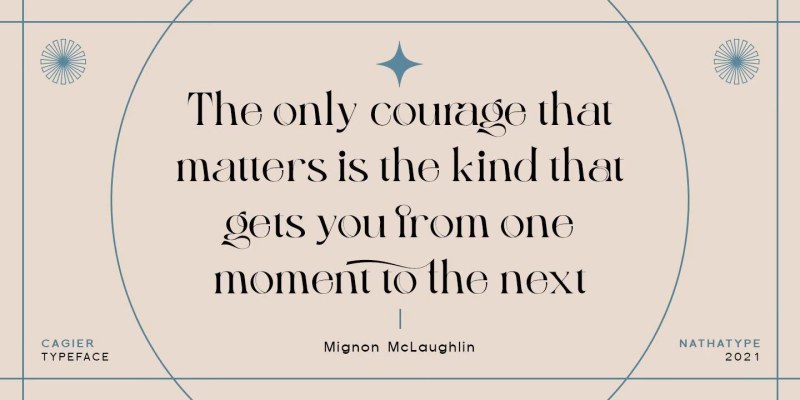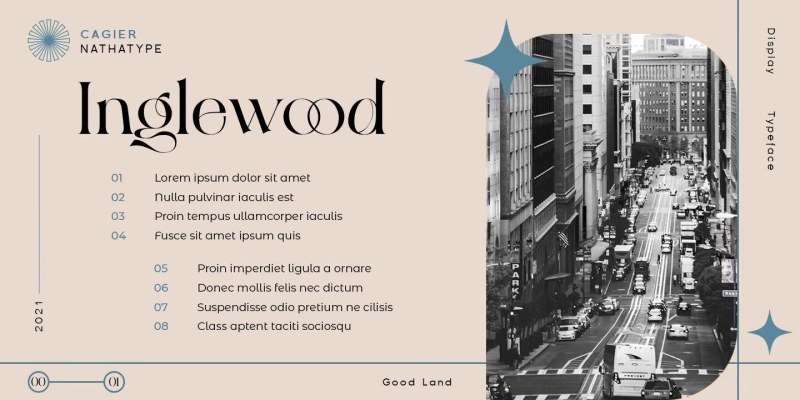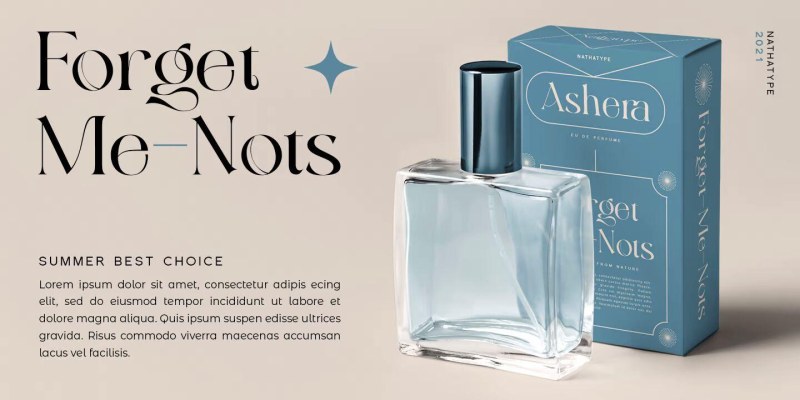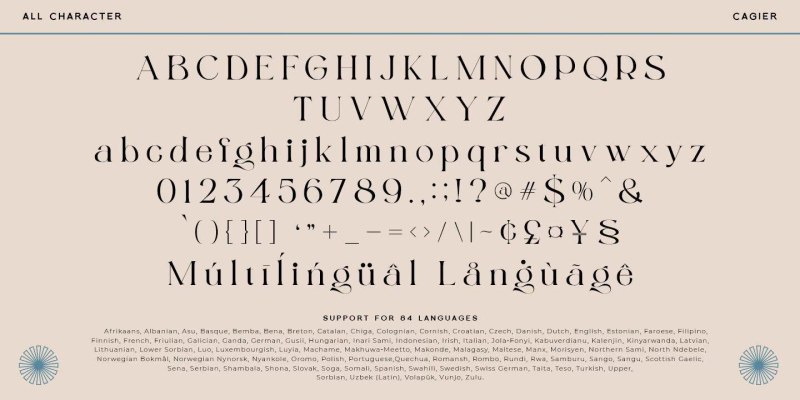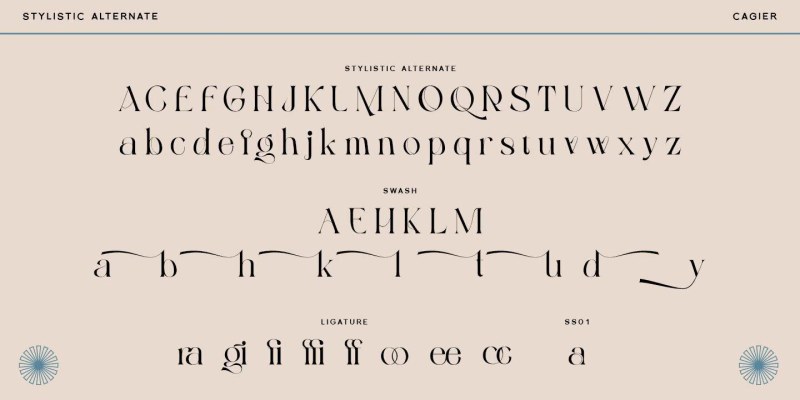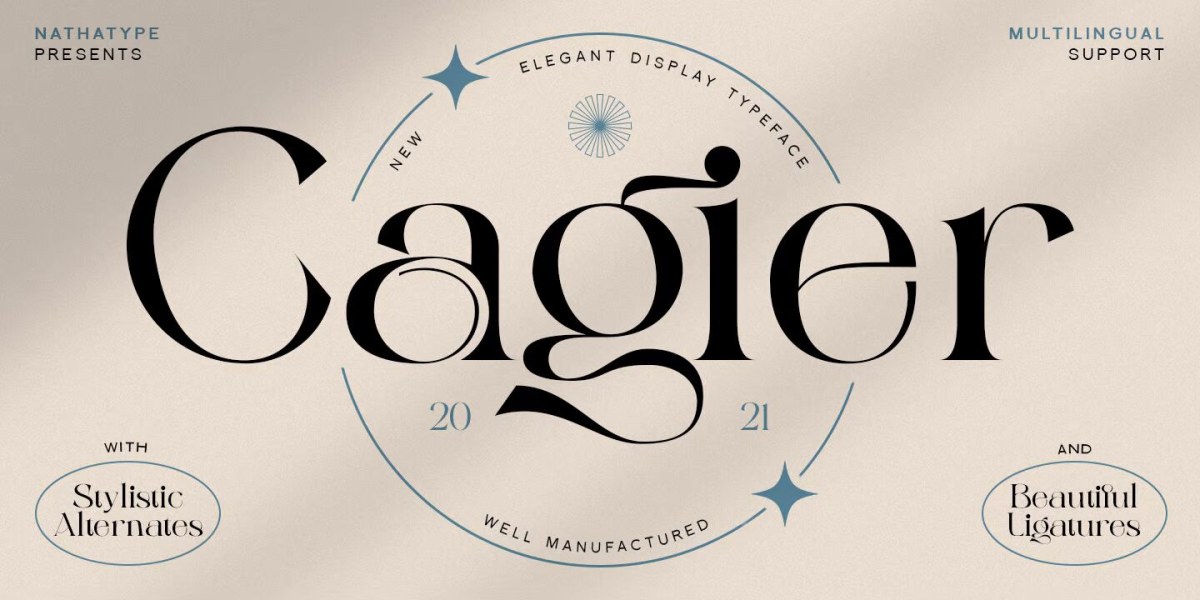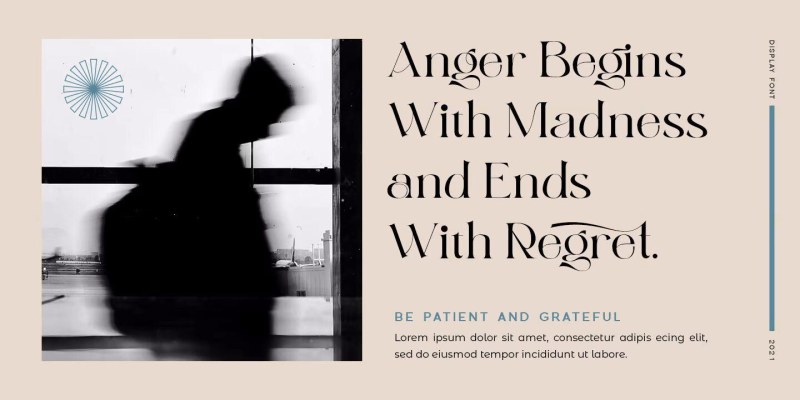
Cagier Font
The display font Cagier has an opulent, elegant, and classic design, so you better not want to miss this one. If you’re searching for an elegant font with flair, do you have aspirations of creating headings that are unique, stimulating the imagination, and providing endless fun? Something that can add a unique touch to your design or project. This typeface is ideal for any design because it combines a touch of the modern with classic and vintage flair. Cagier is primarily used for branding, headings, magazine layouts, album covers, book covers, movie covers, clothing designs, quotes, greeting cards, flyers, posters, product packaging, printed quotes, and so on.
Cagier Font is a Display Fonts font that brings a professional and versatile look to your projects. The display font Cagier has an opulent, elegant, and classic design, so you better not want to miss this one.